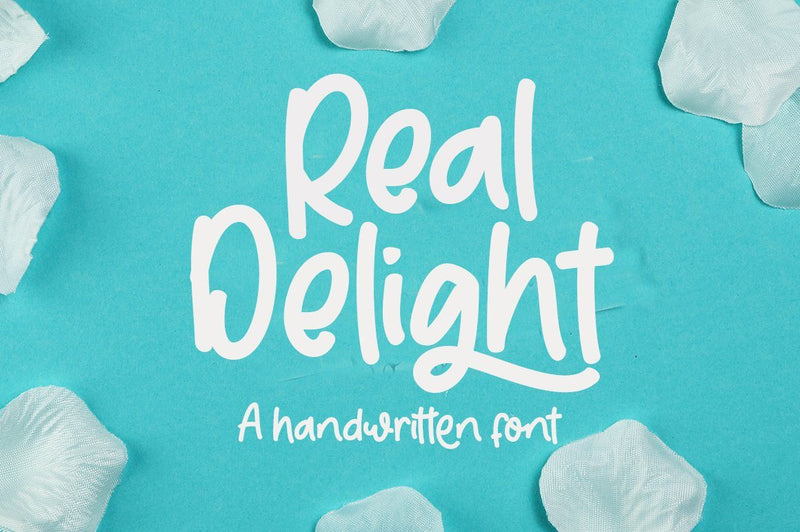
Real Delight
Real Delight is a cool and natural handwritten font. It can be used for various designs, such as logos, labels, branding and pretty much anything that requires a relaxed touch.